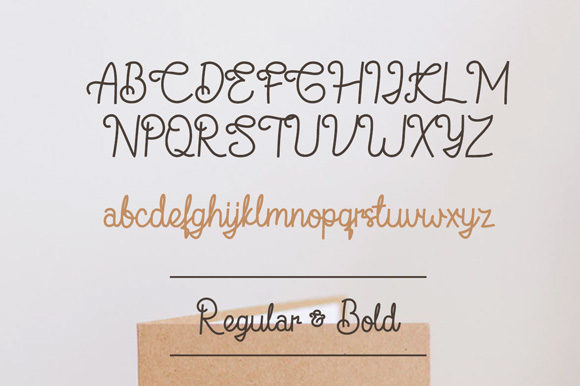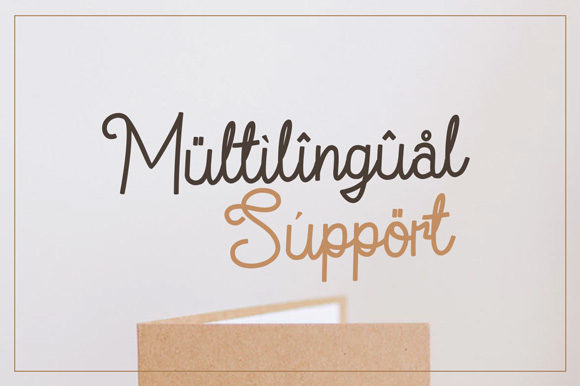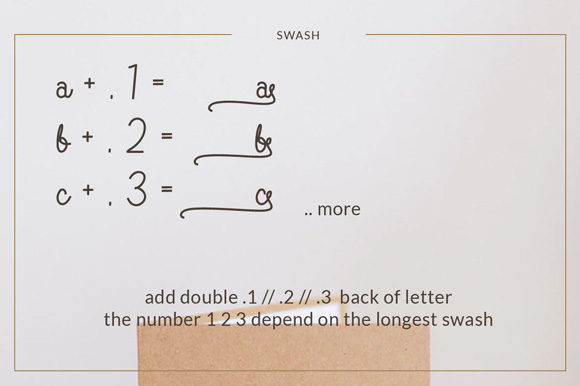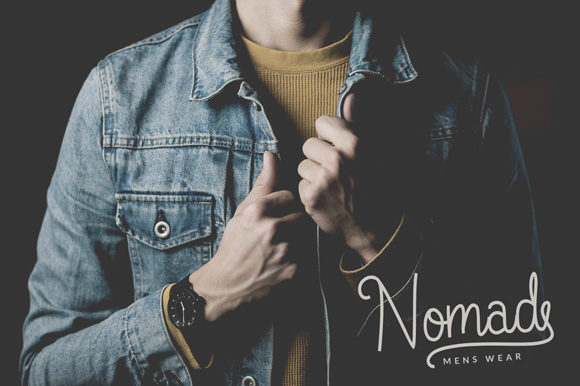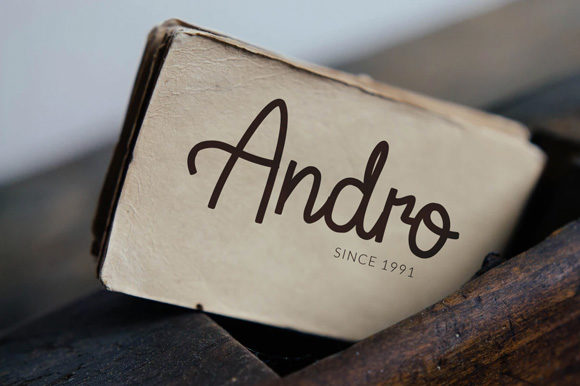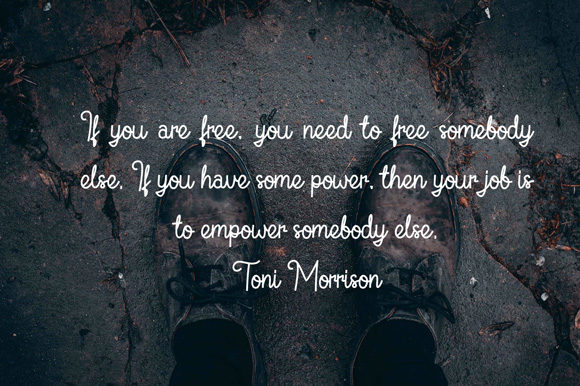
The Flamingo Font: A Monoline Script with Retro Flair
The Flamingo font is a monoline script typeface that boasts strong shapes while maintaining an elegant, retro feel. Its versatility makes it perfect for various design applications, including branding, posters, invitations, and more!
- ✨ Elegant, retro aesthetic that’s perfect for designs that require a touch of sophistication
- ✅ Strong, monoline shapes that provide excellent legibility
- 💫 Highly versatile and can be used for a wide range of design projects
- 🎨 Beautiful OpenType features, glyphs, and stylistic alternates that add creative possibilities
While the Flamingo font is an excellent choice for many design projects, there are a few minor quirks to consider:
- 🤔 Some users may find the font’s monoline structure can make it challenging to read in small sizes or at a distance
- ⚠️ Limited availability of condensed or expanded variations, which may limit its use in certain design scenarios
According to fictional accounts, the Flamingo font was designed by a team of creatives who drew inspiration from the iconic flamingo birds of the 1950s and 60s. The designer’s goal was to create a font that captured the essence of retro elegance while maintaining a modern, sophisticated feel. The result is a font that’s both nostalgic and timeless.
| Author | Trim Studio |
Q: What type of designs is the Flamingo font best suited for?
A: The Flamingo font is versatile and can be used for a wide range of designs, including branding, posters, invitations, and more.
Q: Does the Flamingo font support OpenType features?
A: Yes, the Flamingo font supports OpenType features, including ligatures, glyphs, and stylistic alternates.